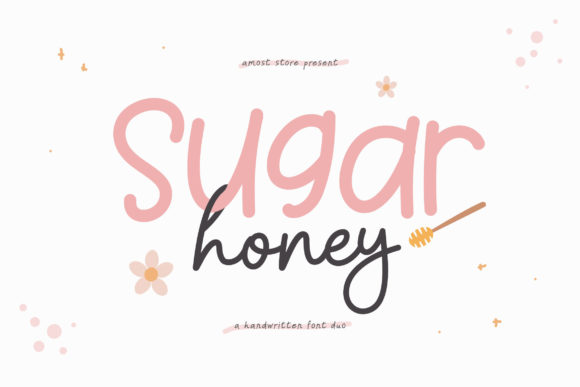
Journey into the world of Sugar Honey Font, a mesmerizing script font family that will cast a spell on your creative projects. This duo styled handwritten font is a captivating blend of elegance and charm, perfect for adding a personal touch to your designs.
Imagine the possibilities with Sugar Honey Font. Its enchanting curves and graceful lines will transform your words into works of art. Whether you're designing invitations, creating social media posts, or crafting personalized gifts, this font will elevate your creations to new heights.
With Sugar Honey Font, you'll have the power to evoke emotions and capture attention effortlessly. Its unique character will add a touch of whimsy and sophistication to your projects, making them stand out from the crowd. Unleash your imagination and let Sugar Honey Font guide you to new creative horizons.